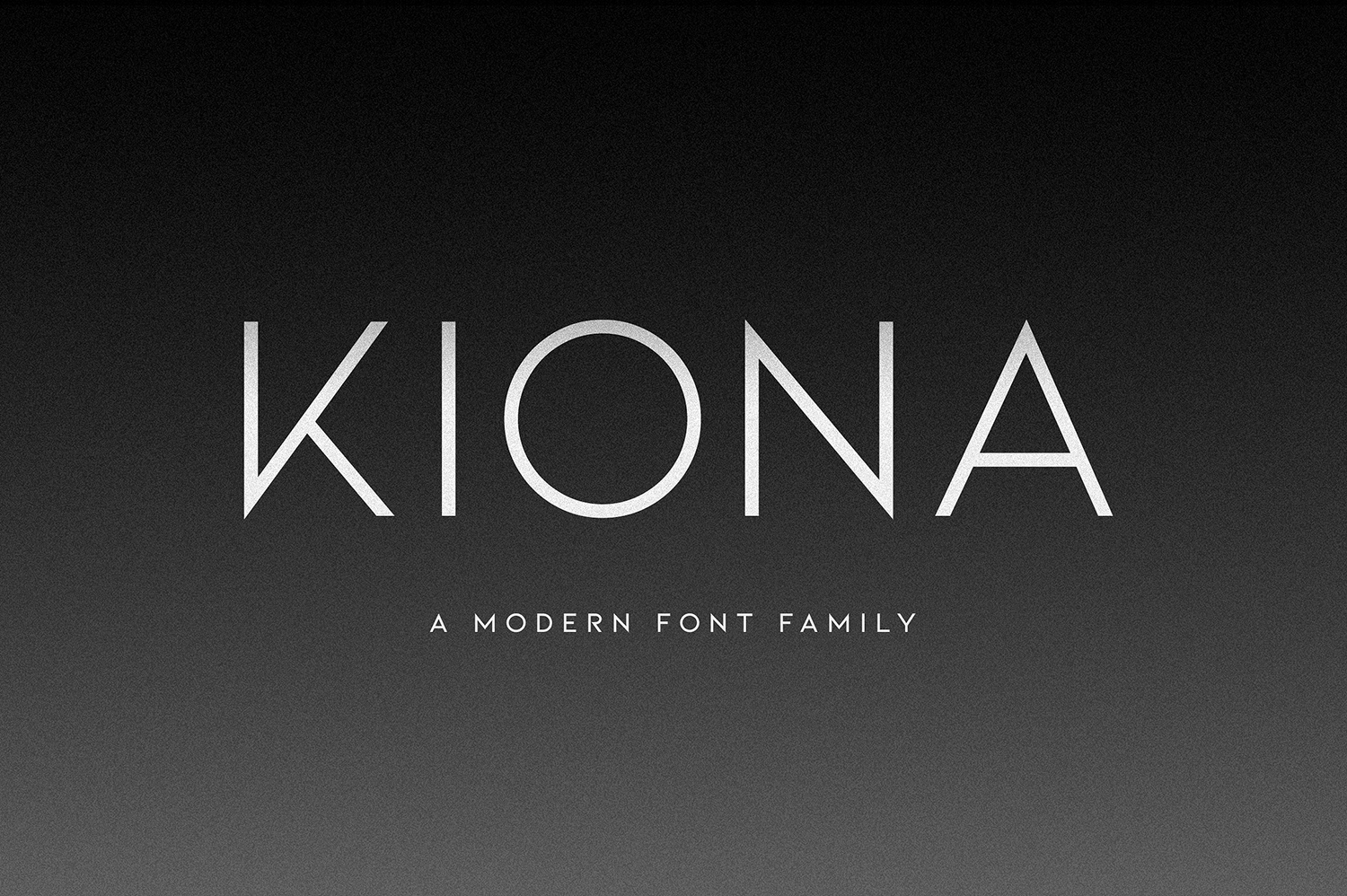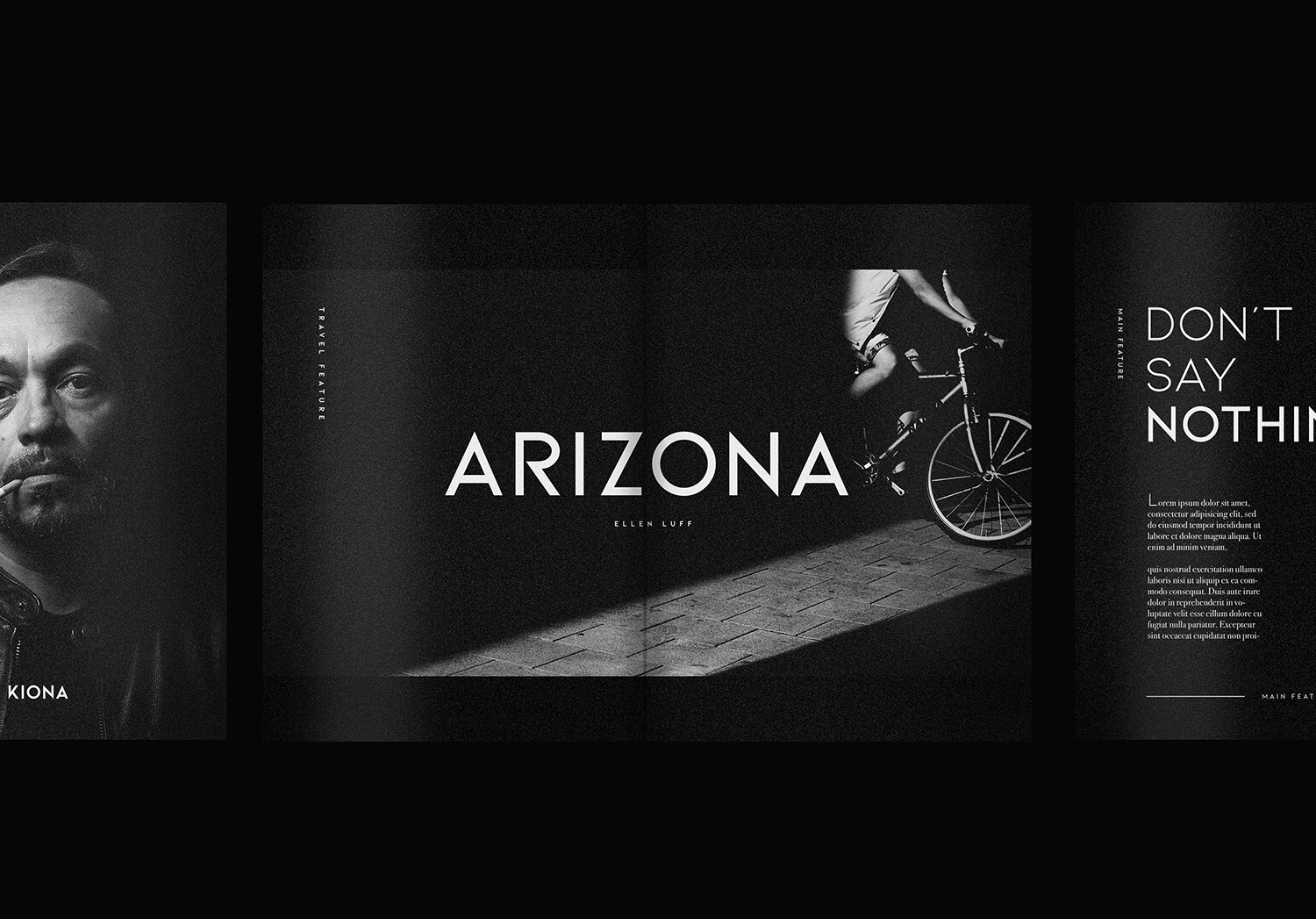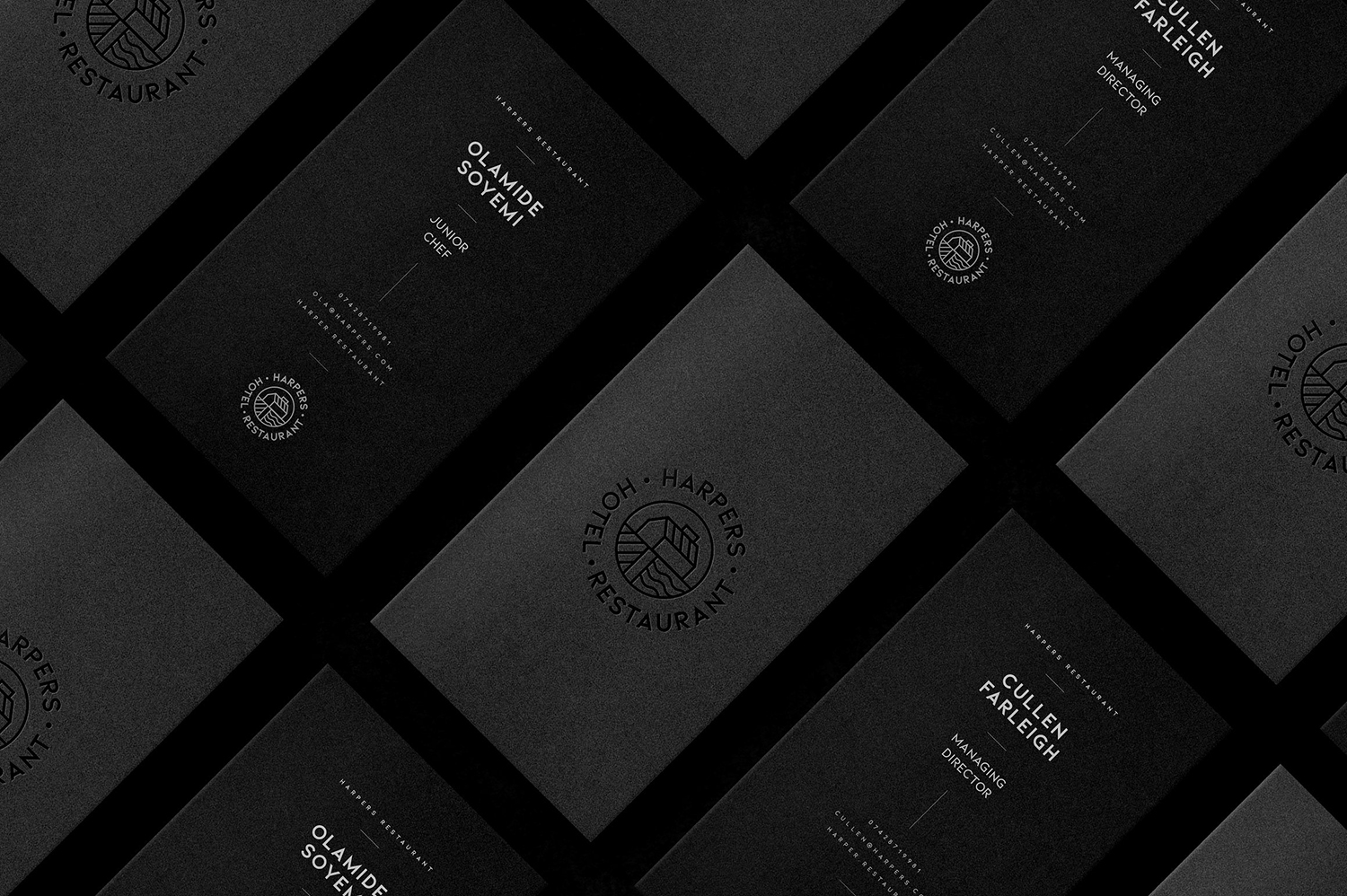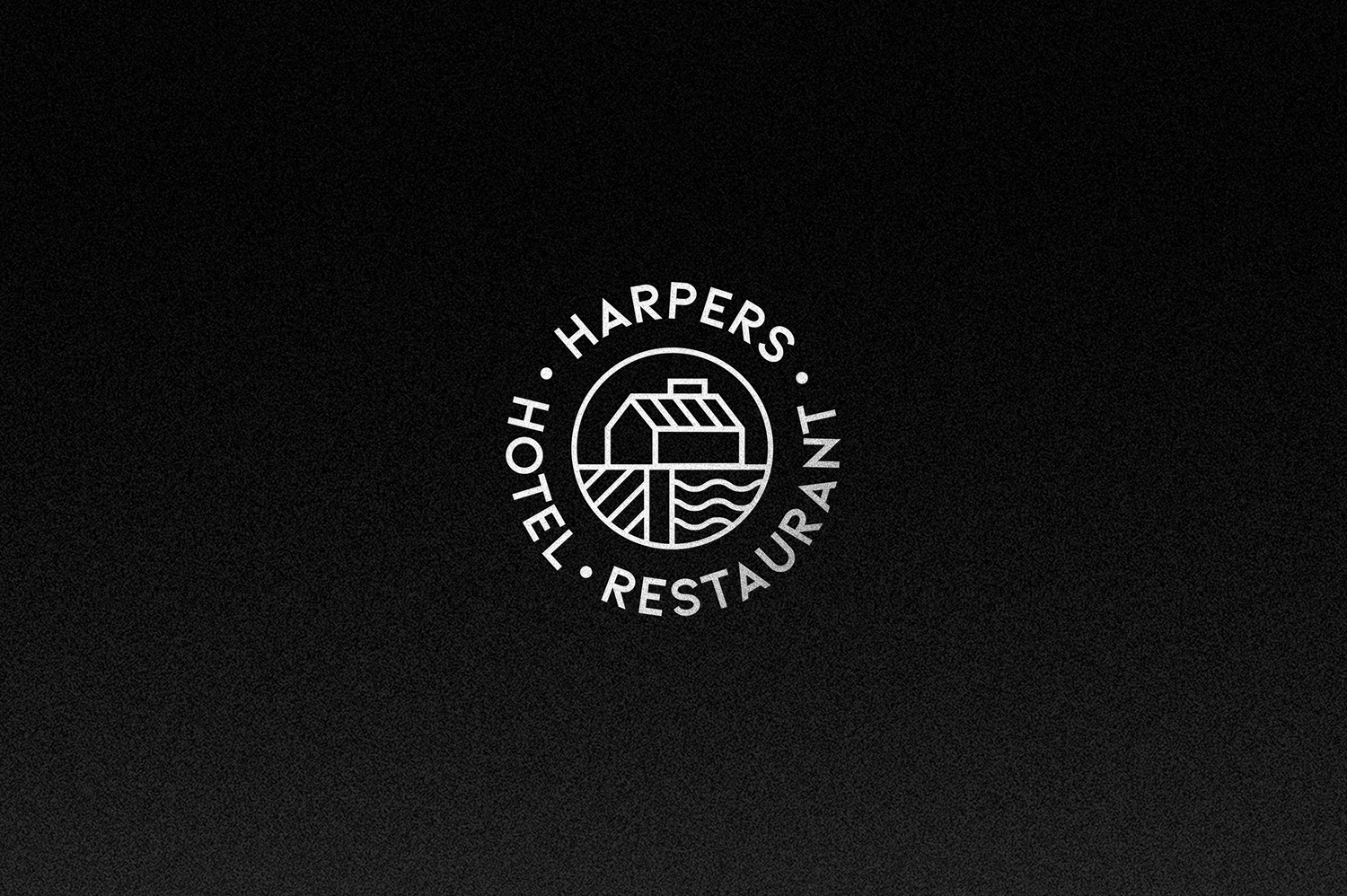
Kiona Font Family
Kiona Font Family is simple but significant and defined by its crisp edges and modern touches. It is designed for optimal legibility. An all caps sans-serif, KIONA makes a statement without making a scene. This free typeface was designed by talented Ellen Luff. If you like it don’t forget to check out the full version.